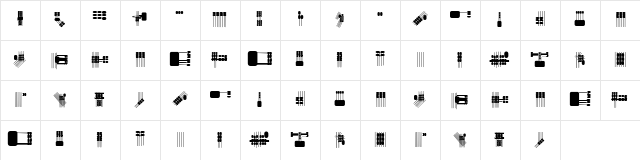
Lines and Objects Regular
Design Context for Lines and Objects Typeface
Lines and Objects is a composed and adaptable typeface that performs quietly and consistently across a wide range of design contexts.